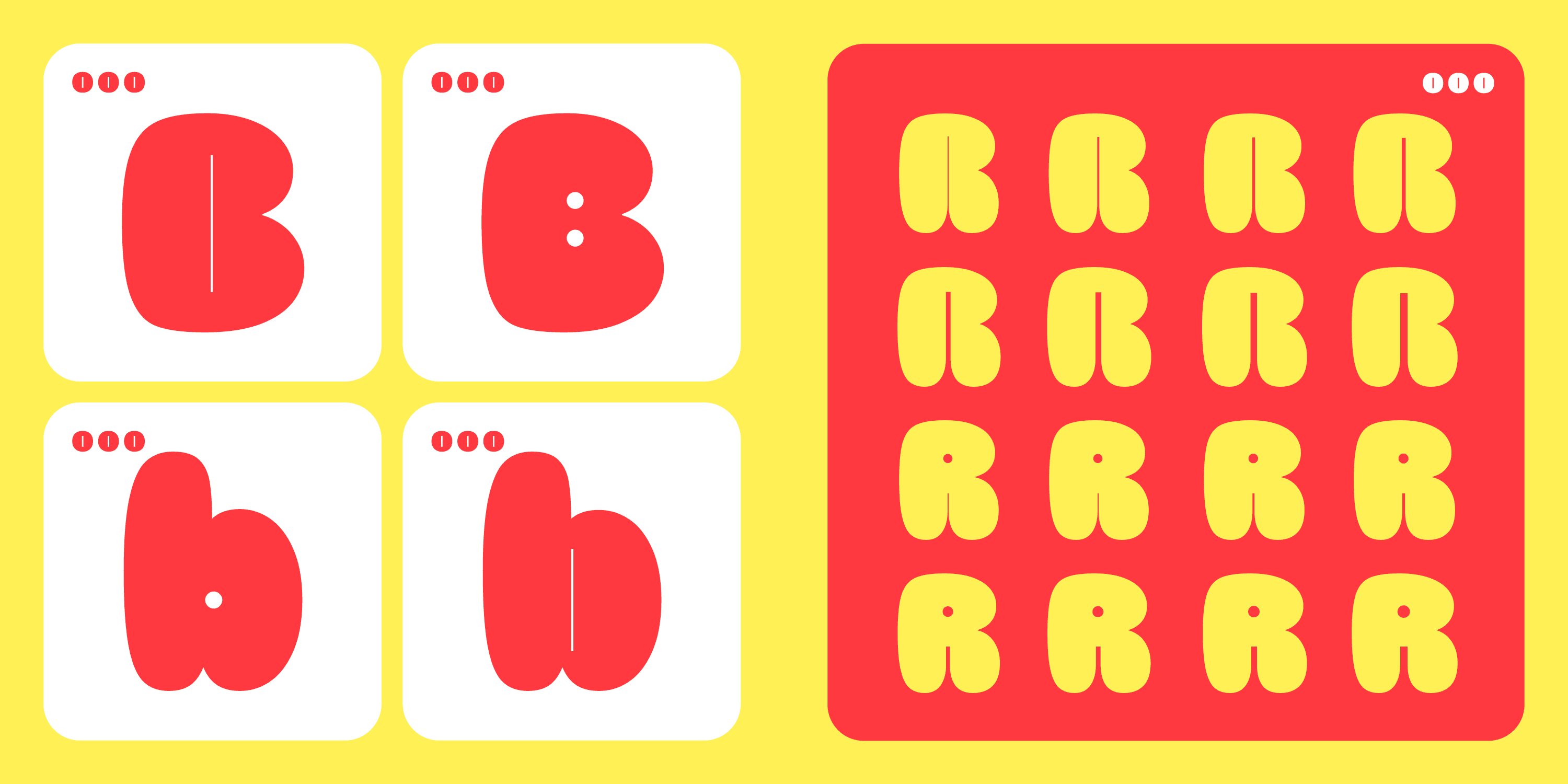
Burghi
This chubby display face is a variable font that reflects something of the hedonistic social climate in 1980s Italy.
Burghi: looking back in hunger
Designed by Fabrizio Falcone and Alex Bossi, Burghi is a variable display font. Inspiration came from the graphic styles of the early fast-food joints and especially the logo (perhaps influenced by Joseph Churchward’s Marianna typeface) of the first Italian US-style fast-food chain.
In the early 1980s, a youth subculture based on appearance and consumer lifestyles was spawned in Milan. The teenagers who made up that wave mostly went to private schools in the city centre. They were labelled ‘paninari’ (hamburger eaters) because they used to crowd into a pub called Al panino (‘panino’ means sandwich) in piazza Liberty, or in piazza San Babila, at the fast-food restaurant Burghy.
The ‘paninari’ spent their pocket money on fashionable clothes and appearances. Suntans mattered too. They sought visibility by always appearing stylish, even when they didn’t have much to spend. They were also recognised by their peculiar slang and music preferences. Besides Italian dance music, they liked to listen to pop bands such as Duran Duran, Spandau Ballet, Simple Minds, Michael Jackson, Madonna, Frankie Goes to Hollywood, Culture Club, Pet Shop Boys (who even released the song ‘Paninaro’ in 1986).
A hedonistic faith in a hedonistic world
From 1984 to 1988 the launch and growing popularity of Drive in (a new comical show on one of Berlusconi’s tv channels) amplified this subculture with sketches by Paninaro, a character played by the comedian Enzo Braschi. The show helped spread the ‘paninari fashion’, codifying stylistic features and status symbols craved by youngsters from all over Italy and Italian Switzerland. It was so successful that specialised comics also cropped up: Il Paninaro, Wild Boys, Zippo Panino, Il Cucador as well as Preppy and Sfitty, their female versions.
The first paninari of Piazza San Babila were from middle or upperclass families from whom they got easy money for motorbikes, expensive clothes – all they needed to be ‘in’. Later young gangs of paninari, from different social backgrounds and with different names, sprung up elsewhere (‘tozzi’ in Rome, ‘zànari’ in Bologna, ‘bondolàri’ in Verona etc.). However, after a decade, that untroubled, easy-going lifestyle faded away and the paninari disappeared.
Burghi, the chameleonic face
Burghi’s lumpy style brings back the taste of those hedonistic times. Fat and rounded, its letterforms evoke a tangible sensation of smoothness and satisfaction, making it a good choice for any kind of fun or joyful communication.
As a variable font, Burghi’s counters have two alternative designs: one has straight and tiny counters (almost microscopic) for the bigger sizes starting from 40 points, while the other has slightly wider counters for smaller sizes (minimum 20 points). In addition, Burghi’s character set is enriched by three emojis from the fast-food world: hamburger, chips and drink.
Bagel counters (SS 01)
Ligatures